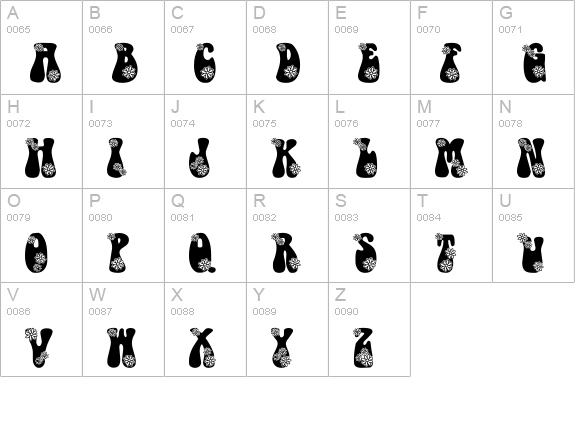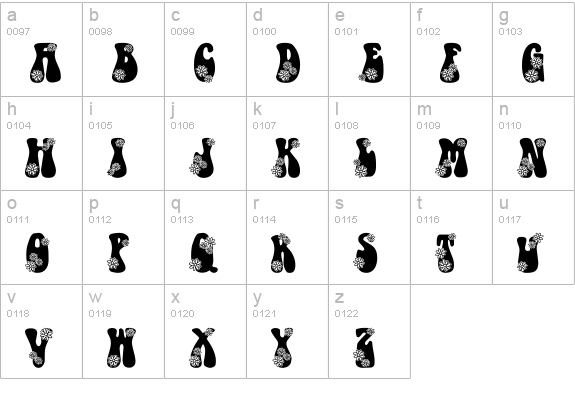
LMS Hippy Chick font exudes a whimsical and carefree vibe, perfect for adding a touch of retro charm to your designs. With its playful and hand-drawn style, this font captures the essence of the 1960s hippie culture. Each letter is uniquely crafted with a quirky flair, making it ideal for projects that call for a laid-back and bohemian aesthetic. Best of all, LMS Hippy Chick font is available for free download at FontsMarket.com. Whether you're working on a poster, invitation, or branding project, this font will infuse your designs with a groovy and nostalgic feel. Embrace the spirit of the '60s and let LMS Hippy Chick font bring a touch of flower power to your creations.